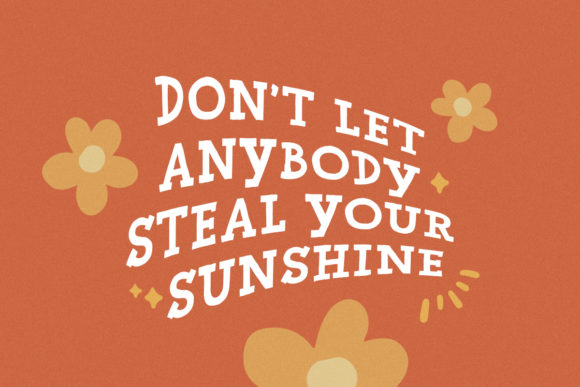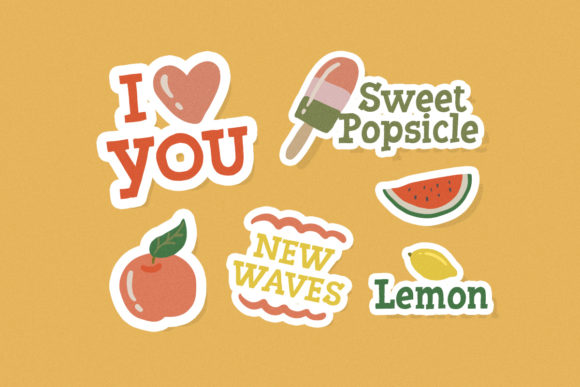
Introduction to Lemonade & Peach Font Font
Fonts play a crucial role in design, and the Lemonade & Peach Font font is a typeface that brings both character and versatility to any project. Whether you’re working on a branding project, a website, or a print design, the Lemonade & Peach Font font offers a unique style that can elevate your work.
Lemonade & Peach is a fresh and fun display font.
This font is perfectly made to be applied especially in storybook covers, comics, cartoon characters, kids theme design, and more .
Key Features of Lemonade & Peach Font Font
Why Choose Lemonade & Peach Font Font?
The Lemonade & Peach Font font is more than just a typeface – it’s a design tool that helps you communicate your message with style and clarity. Its unique character set and versatile design make it suitable for a wide range of applications, from elegant invitations to bold headlines.
With its carefully crafted letterforms and balanced proportions, the Lemonade & Peach Font font ensures readability and visual appeal across all mediums.
What makes Lemonade & Peach Font font special?
The Lemonade & Peach Font font stands out with its unique design, exceptional readability, and versatility across various design applications.